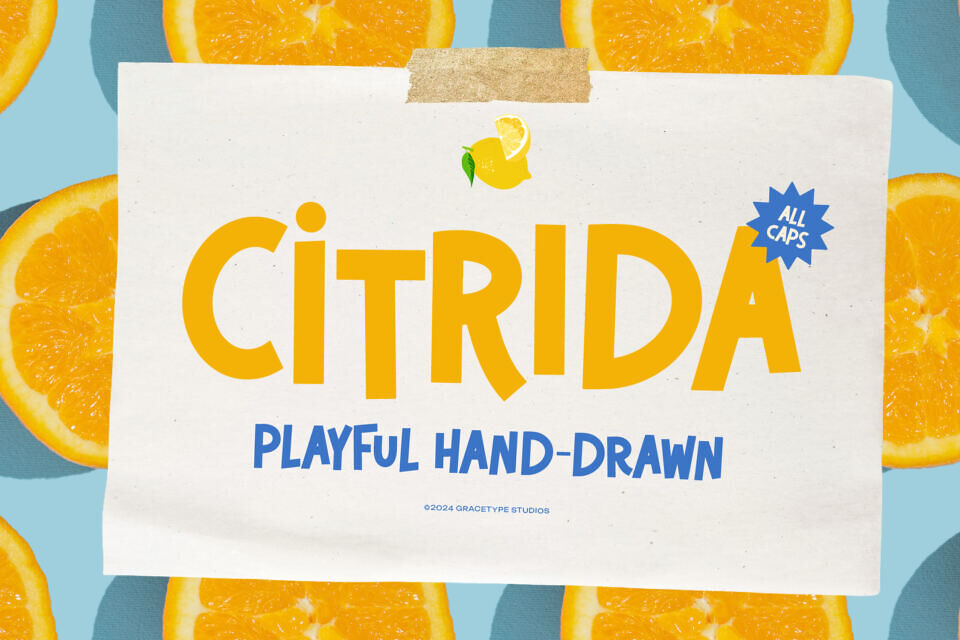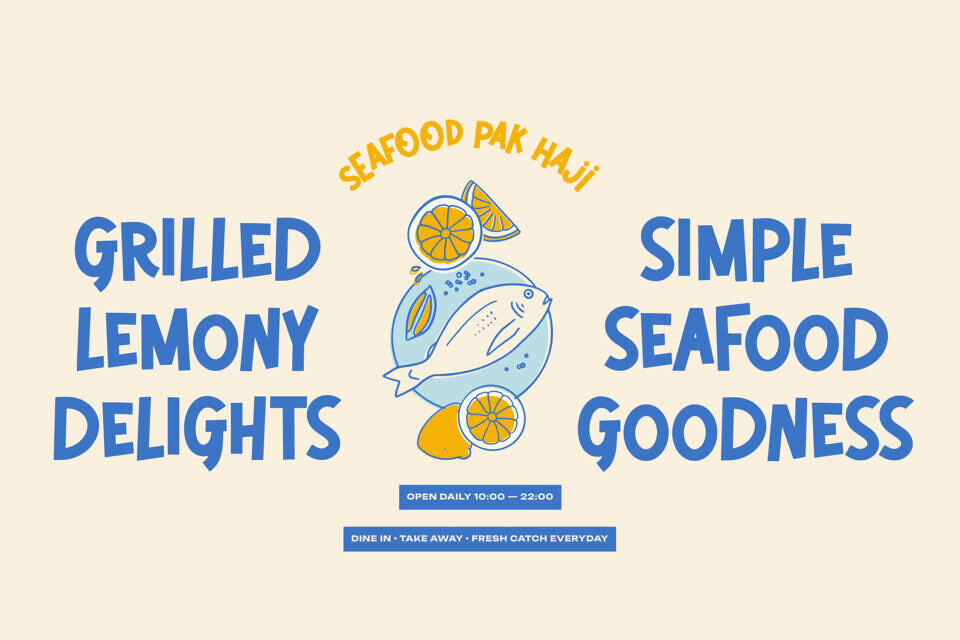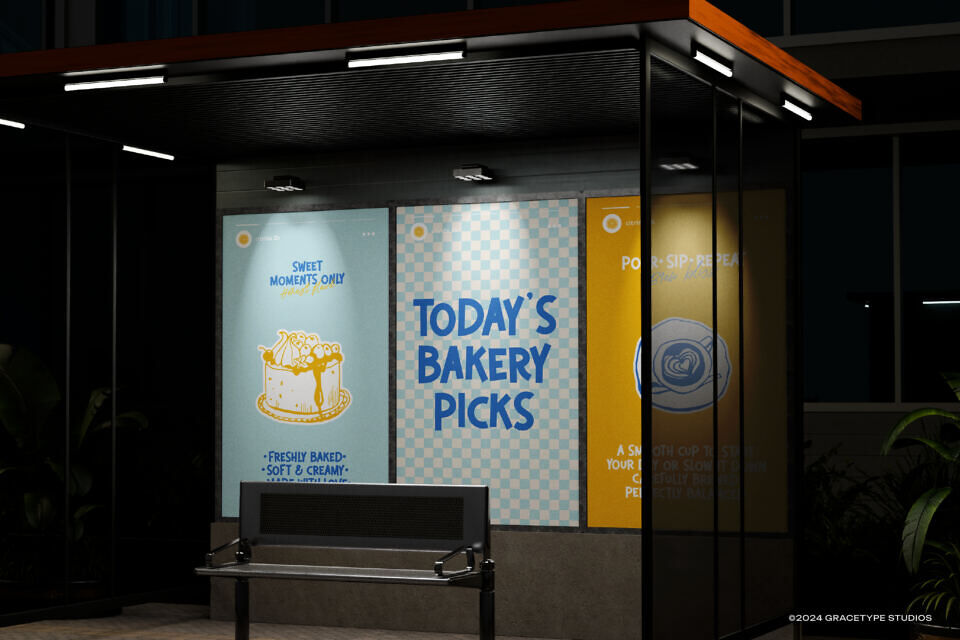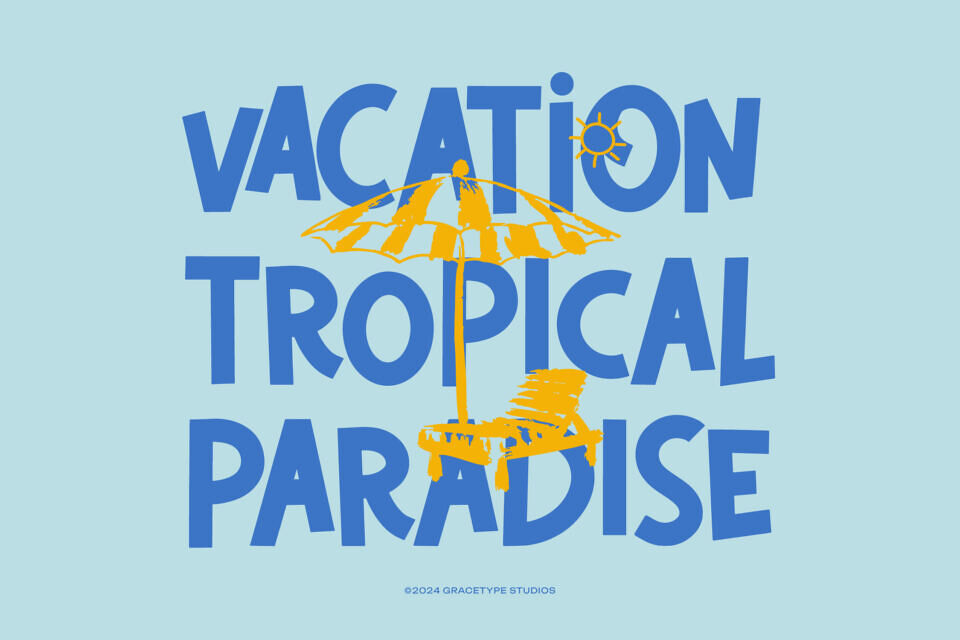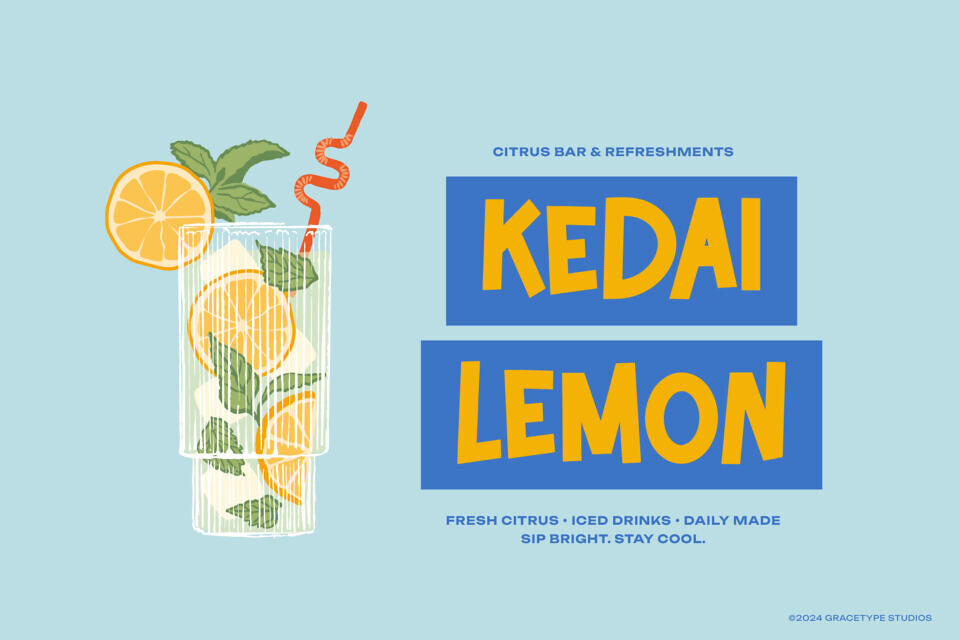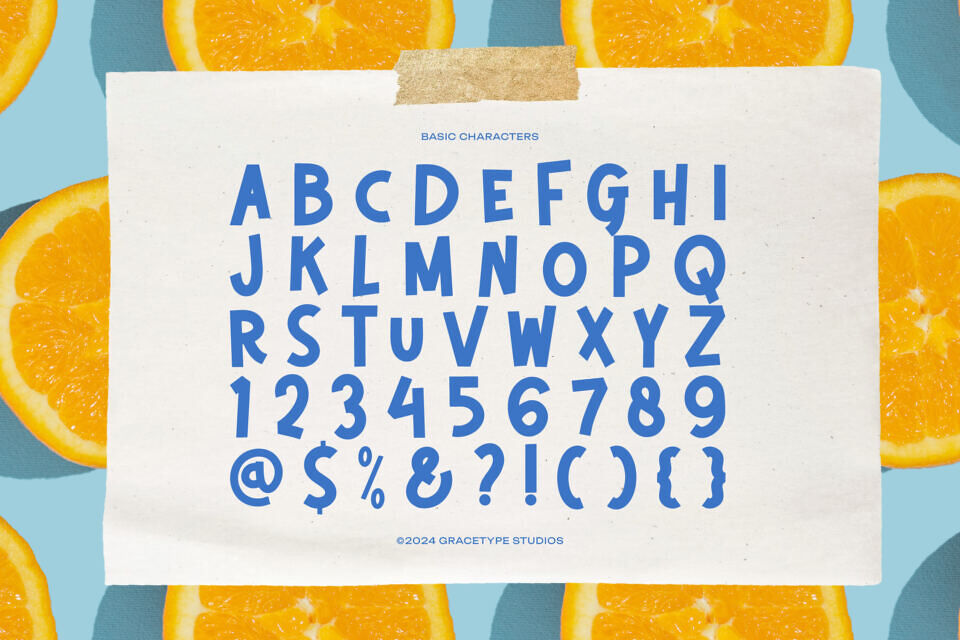
Squeeze every drop of creativity out of your designs with Citrida, a zestful all-caps display font. This playful, hand-drawn typeface features organic, slightly irregular letterforms that capture the sunny energy of a summer morning.
With its bold weight and charming, approachable silhouette, Citrida is the premier choice for juice bar branding, fresh produce packaging, children’s book titles, and vibrant social media graphics. It brings a refreshingly human touch to every layout, ensuring your message feels as bright and natural as a burst of citrus.